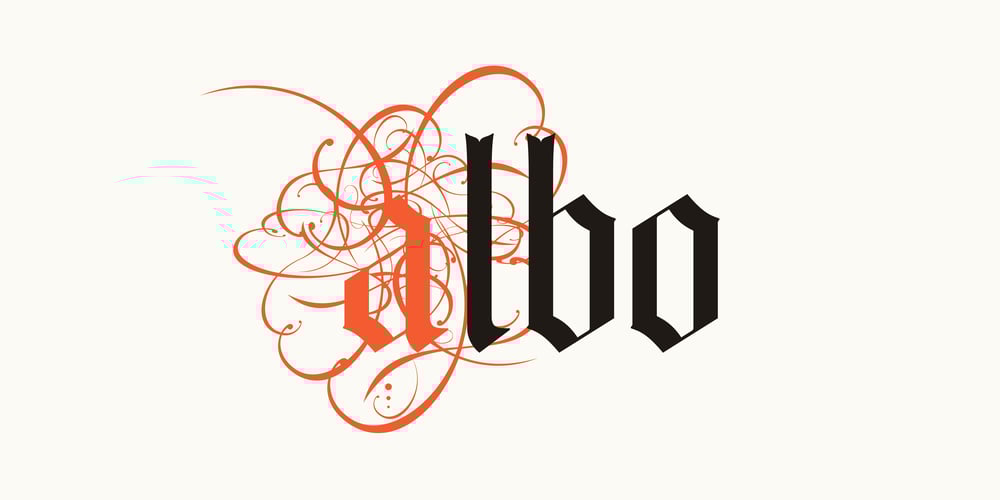
Albo Font Family was designed by Dino dos Santos and published by Monotype. Albo contains 1 styles and family package options. Albo is part of a new set of typefaces inspired in ancient documents from Portuguese 15th and 16th century books. Based on a document from Afonso d’Alboquerque (Goa, July, 1514), Albo was designed to be an inspiring typeface, a blackletter with ornamental elements and many design possibilities.